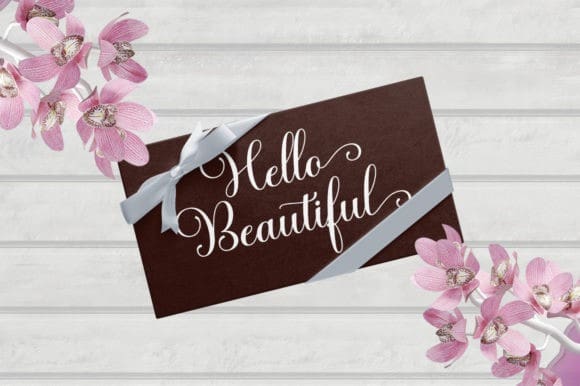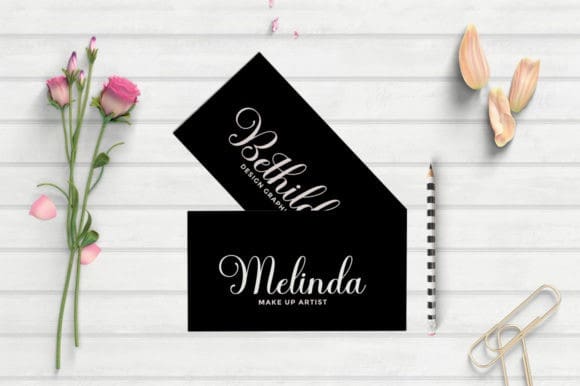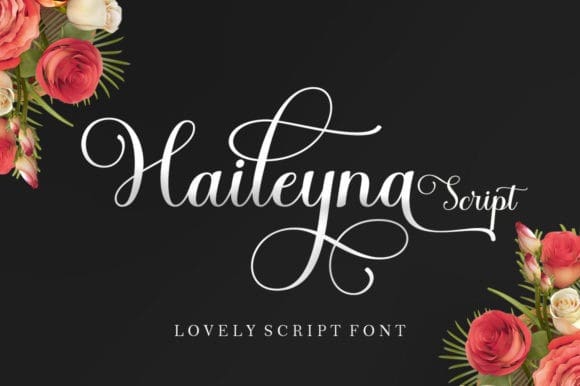
Haileyna Font
Haileyna Font is a beautiful script typeface. It features gorgeous alternates, ligatures and swashes. Fall in love with its authentic feel and use it to create gorgeous wedding invitations, beautiful stationary art, eye-catching social media posts, and cute greeting cards.